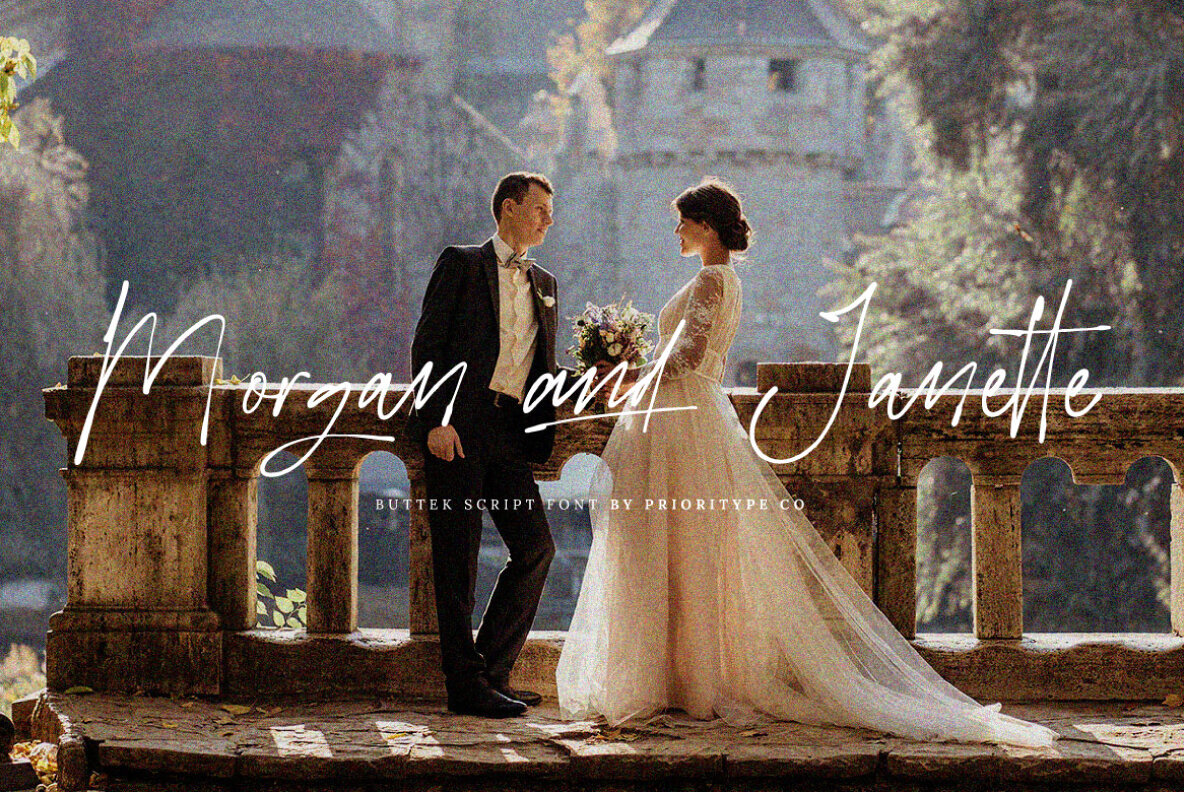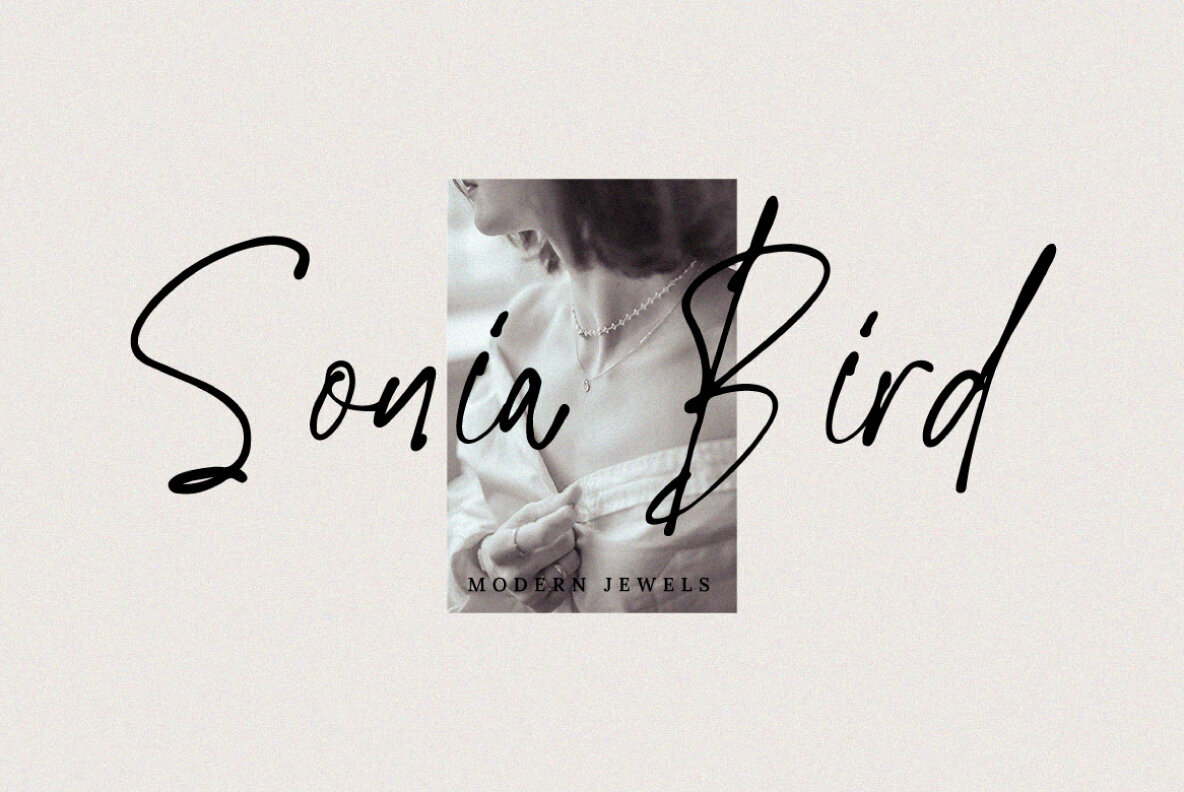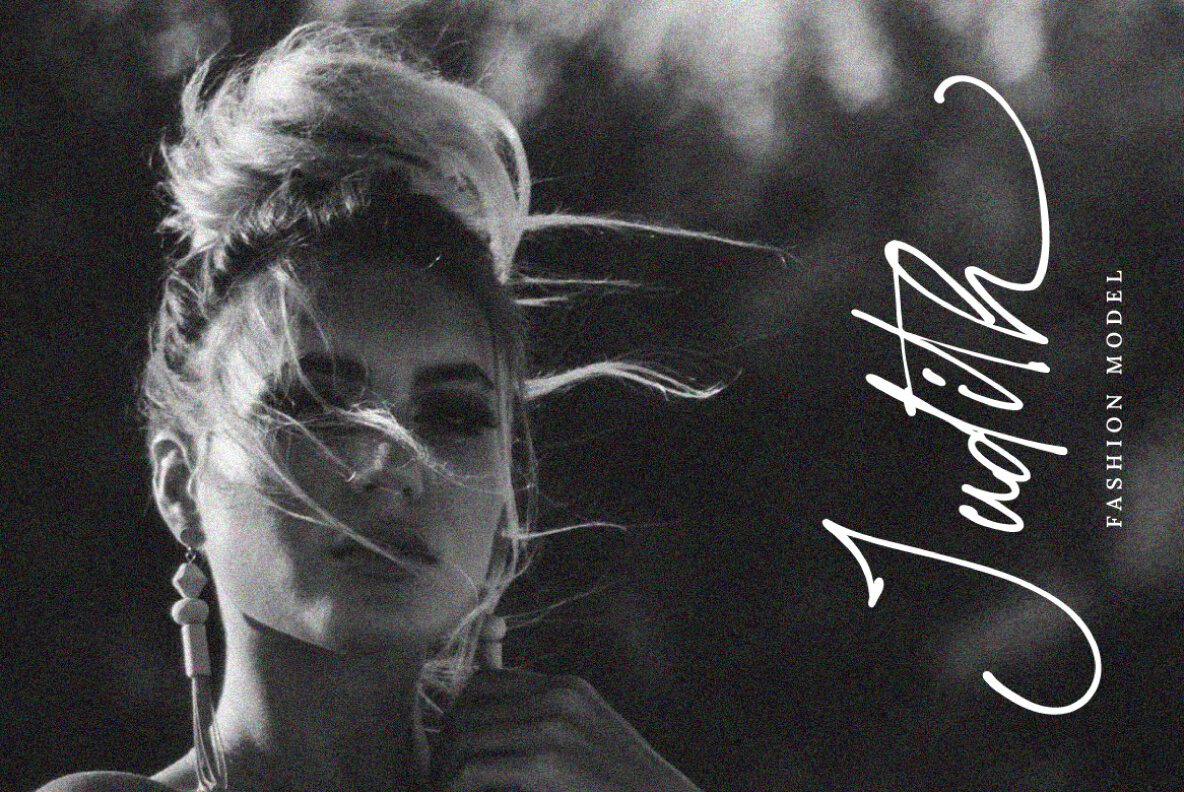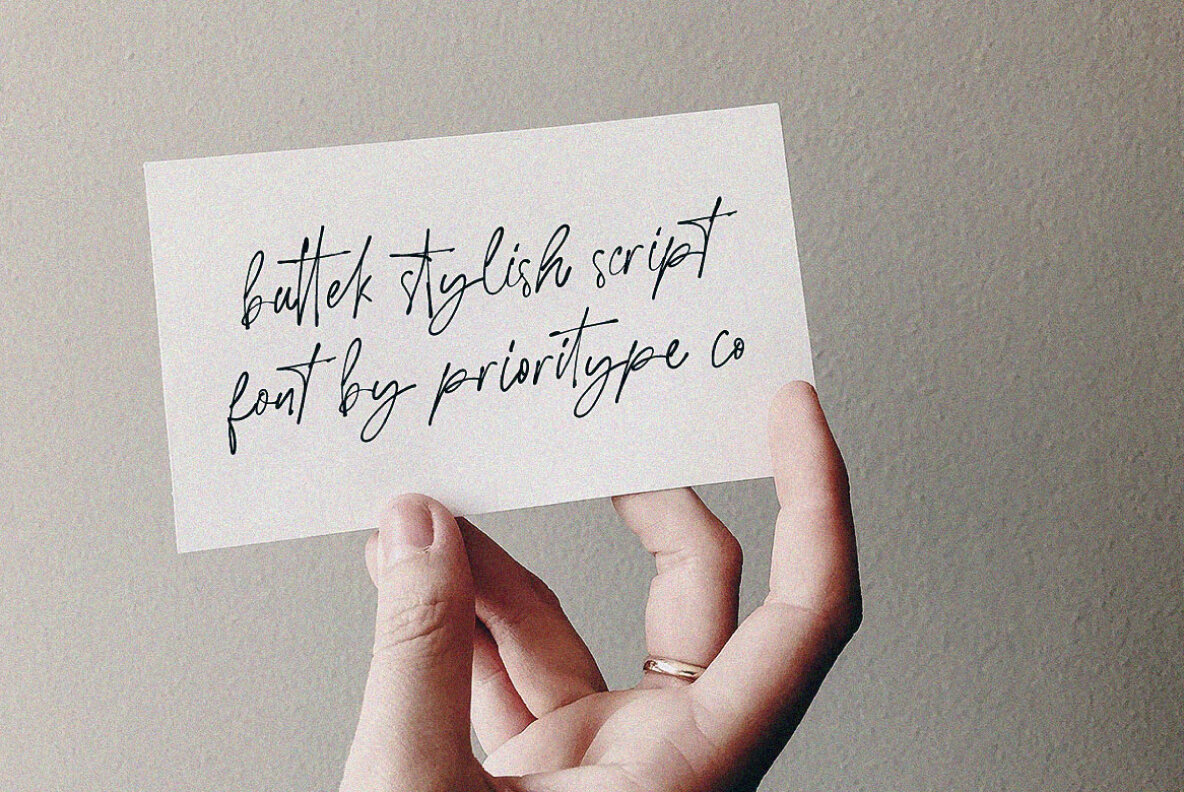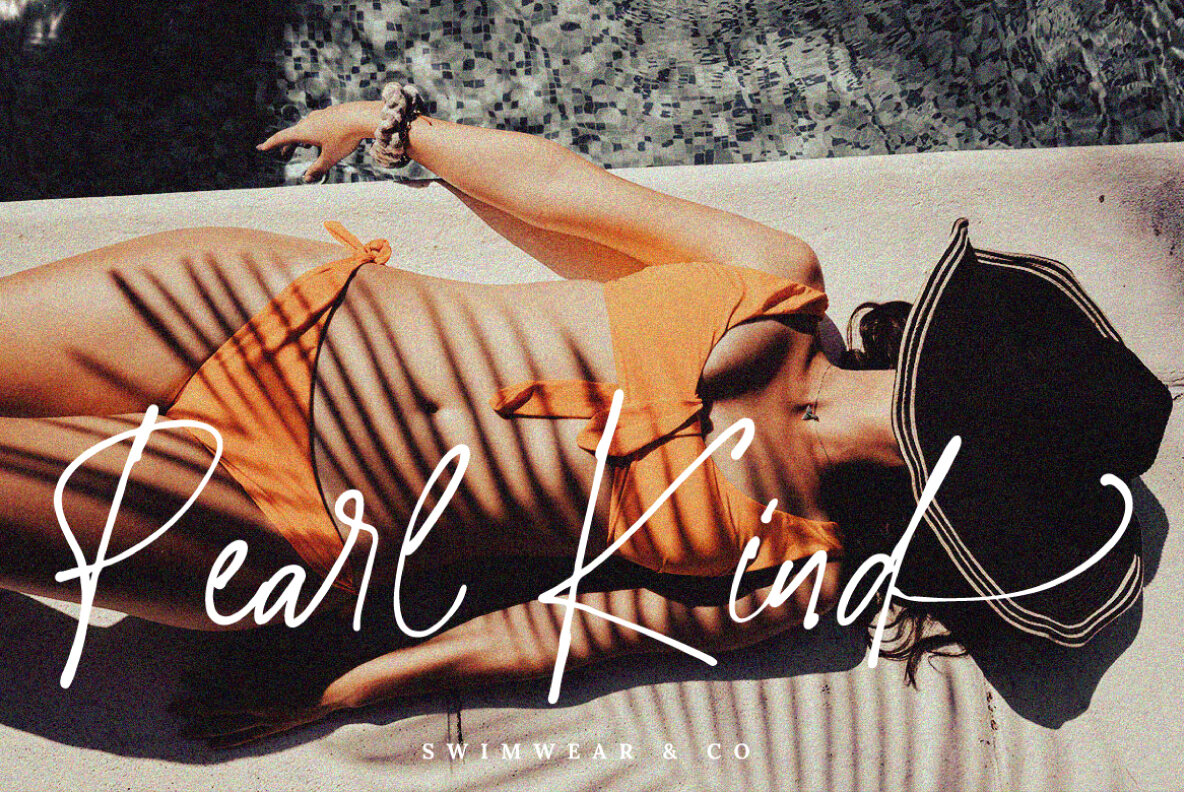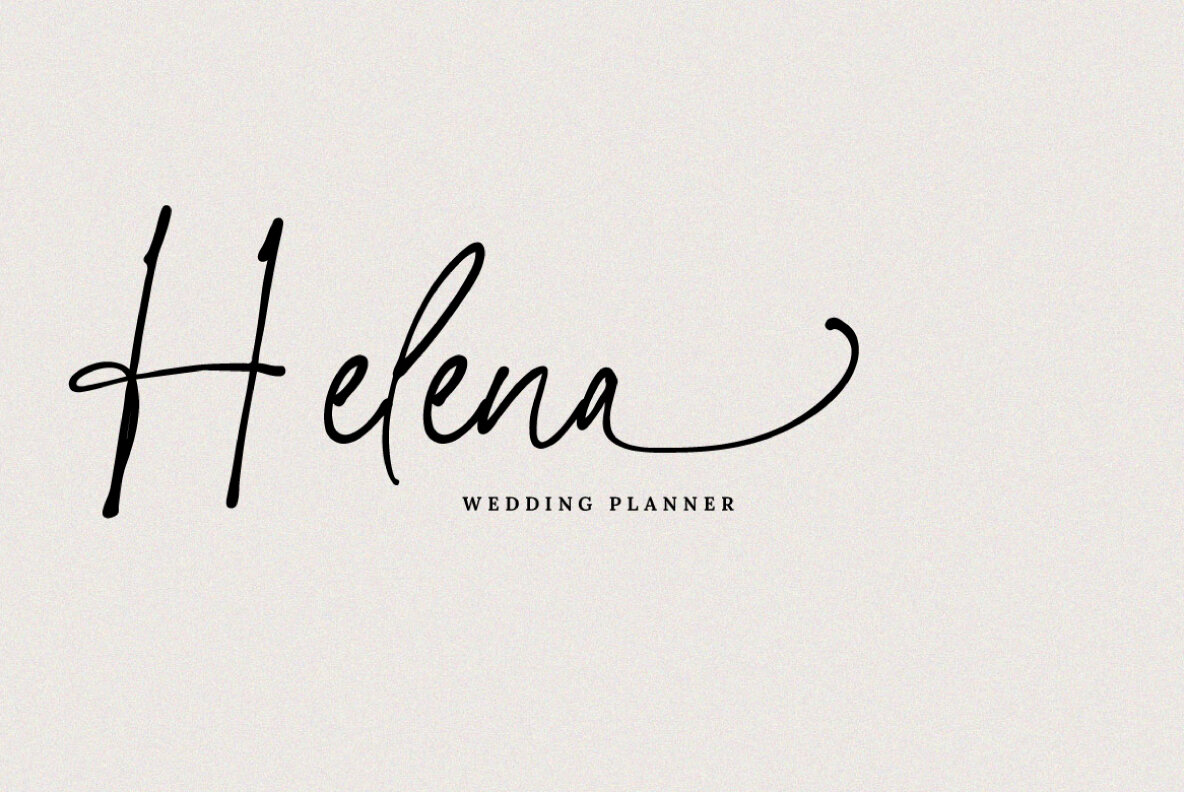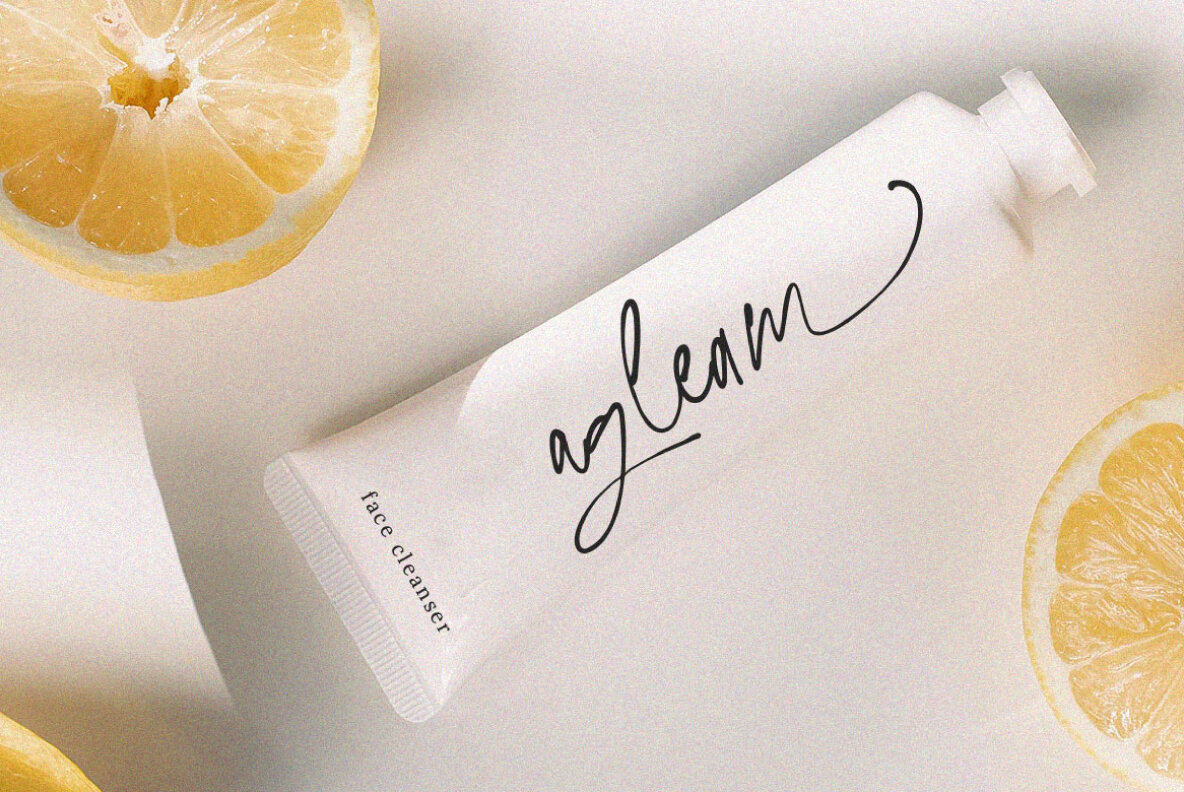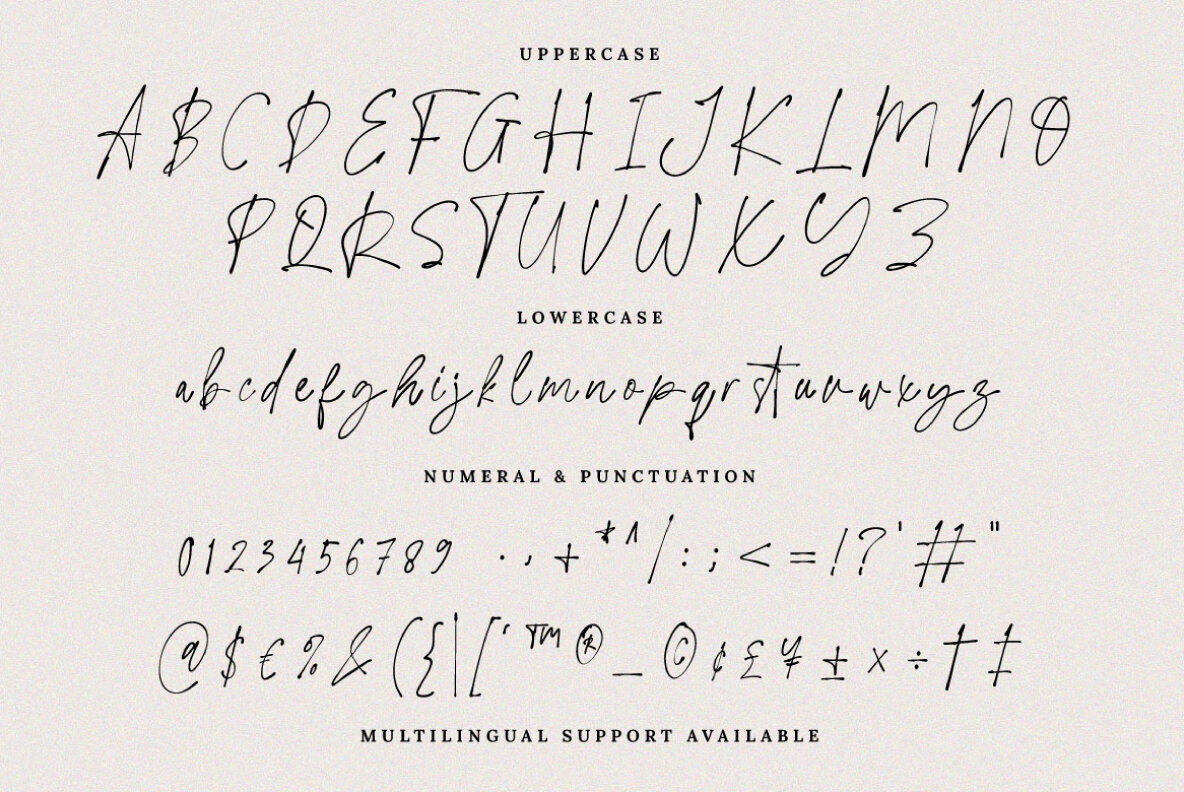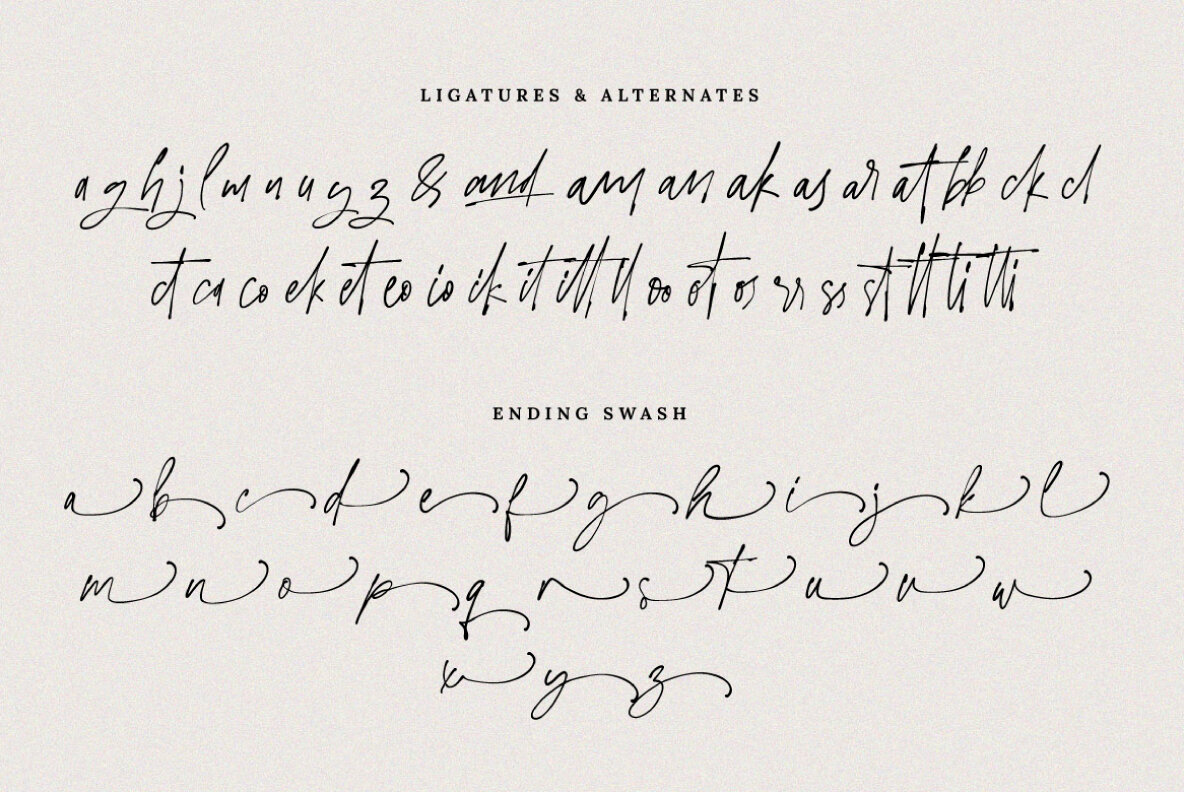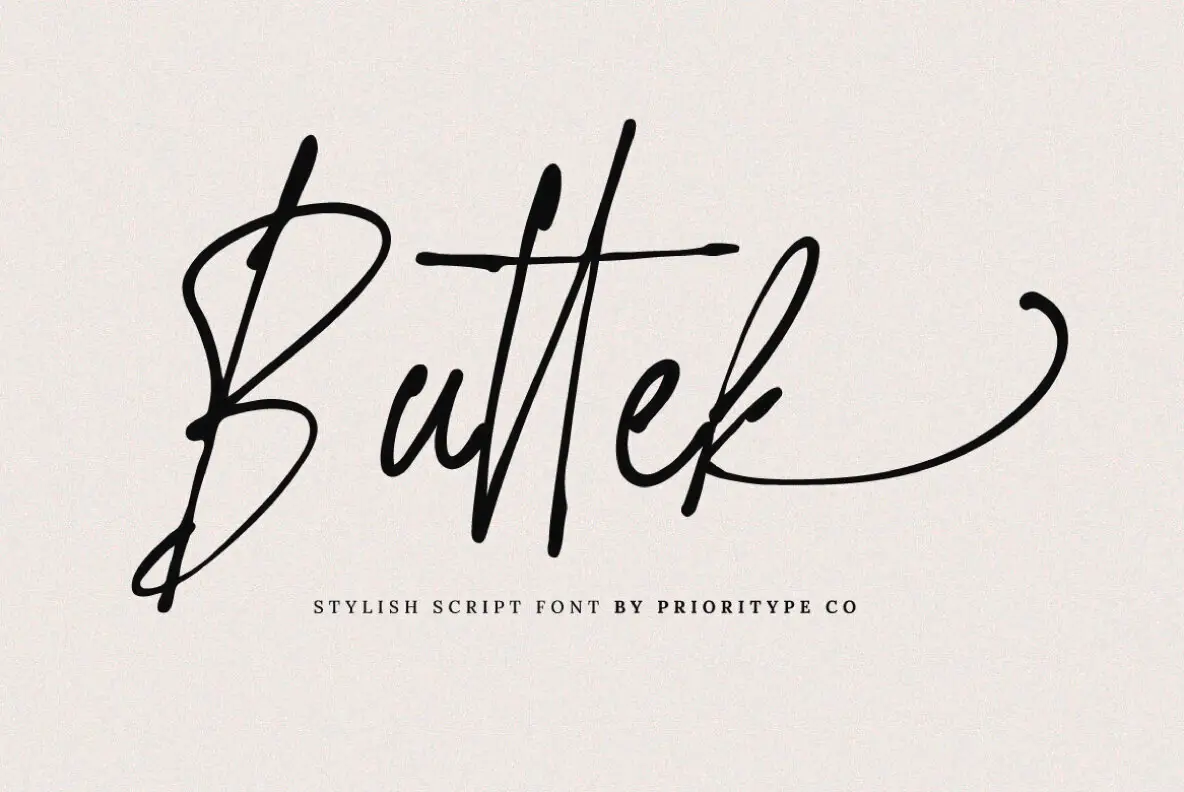
Buttek Font
Buttek
Buttek is a stylish script font crafted with a fast, handwritten aesthetic, perfect for enhancing your creative projects. Ideal for branding, logos, social media graphics, and quotes, this font adds a dynamic touch to your designs. It features a comprehensive set of characters, including uppercase, lowercase, numerals, punctuation, multilingual support, ligatures, and alternates, providing flexibility and versatility in various applications.
This font boasts an extensive range of multilingual support, accommodating a wide array of languages such as Afrikaans, Albanian, Danish, Dutch, English, Finnish, French, German, Italian, Norwegian, Portuguese, Spanish, and Swedish, among others. Enhance your design work with Buttek's unique style and comprehensive character set, making it an excellent choice for diverse projects and audiences.